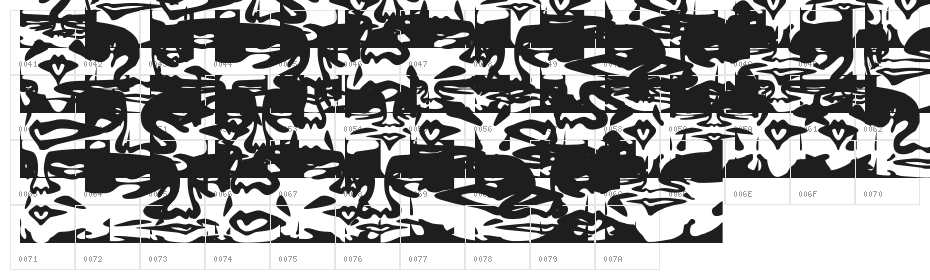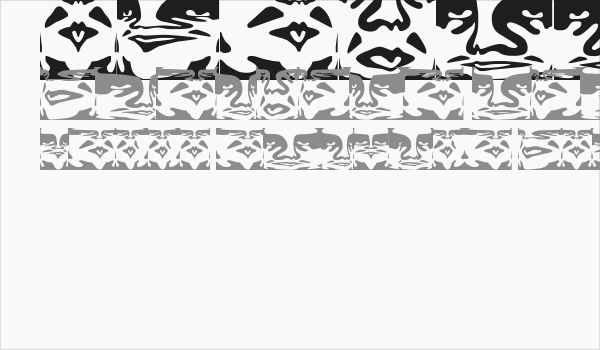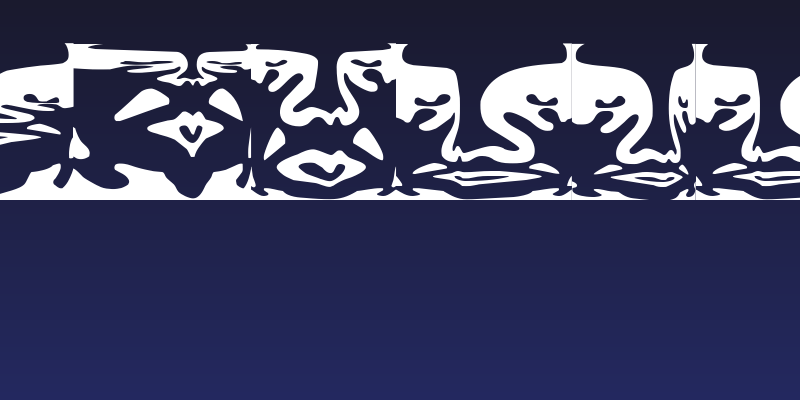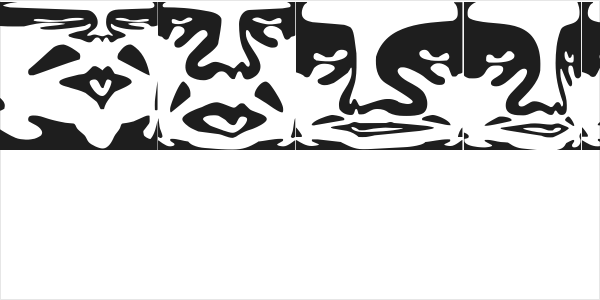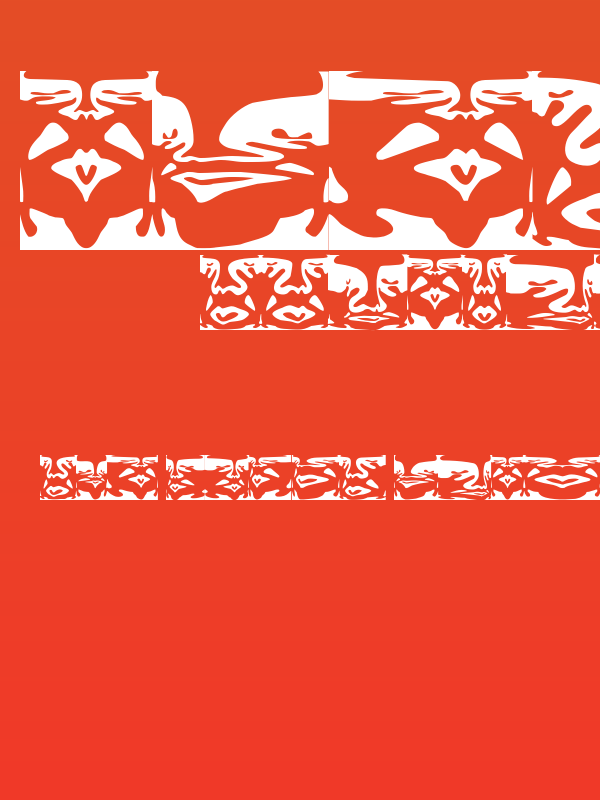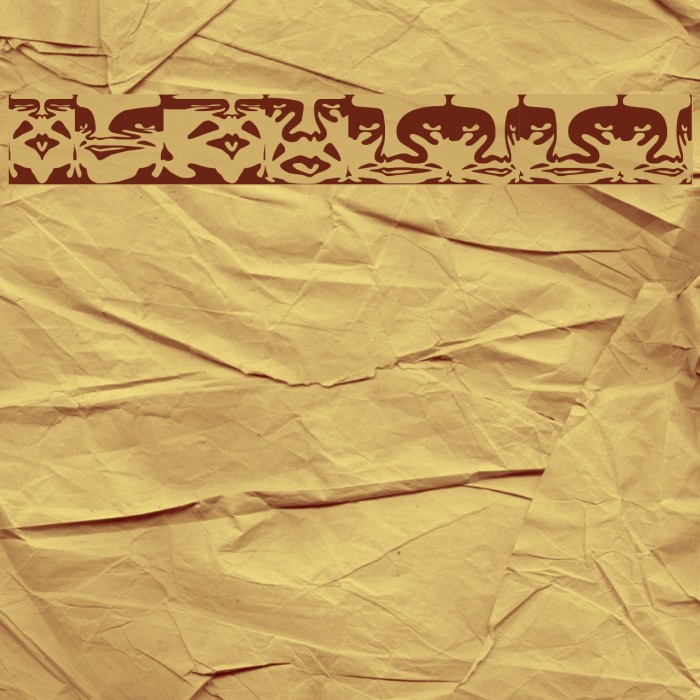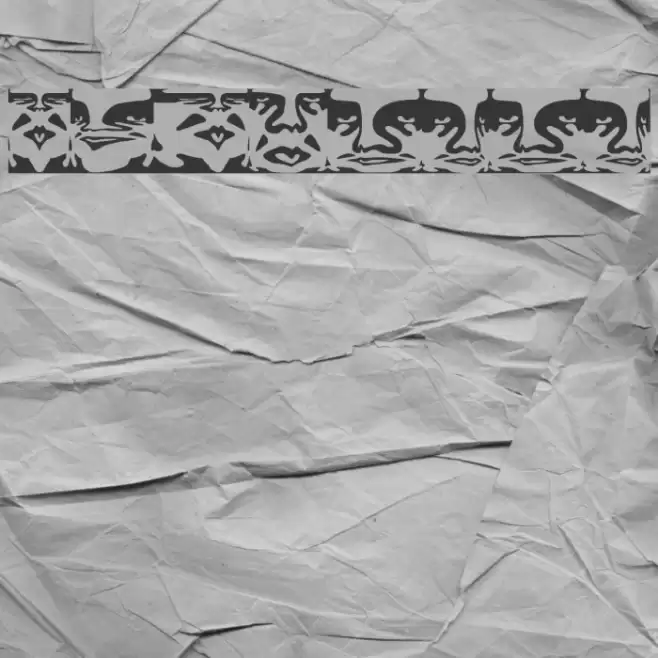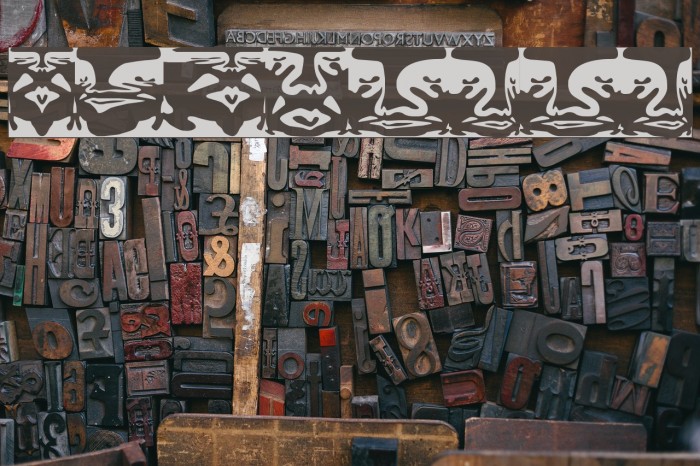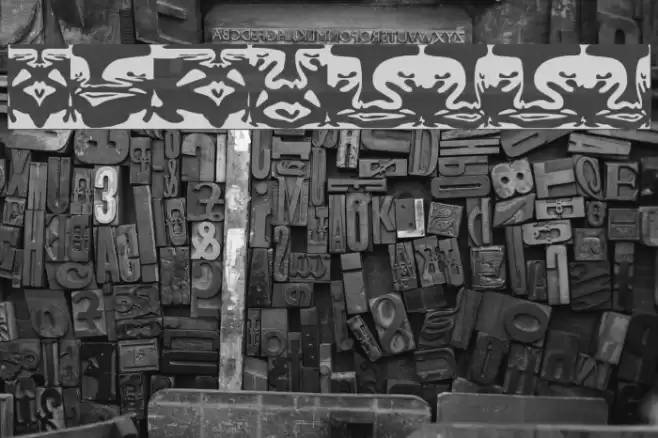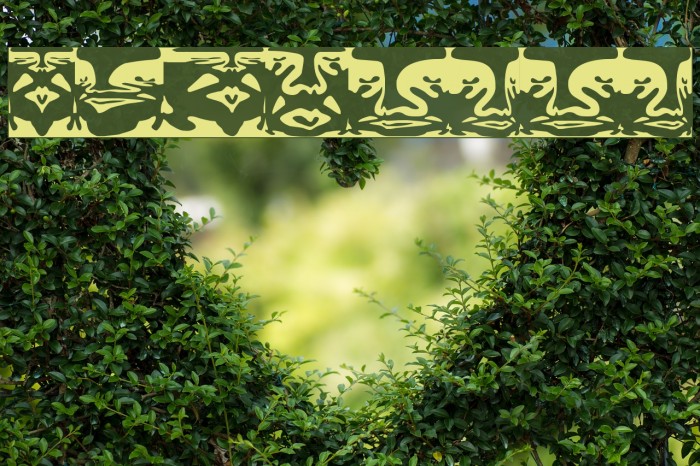
ObeyDada Font
ObeyDada Description
This font features a highly decorative and abstract style, characterized by intricate patterns and shapes that create a sense of movement and complexity. Each character is uniquely designed with swirling lines and bold contrasts between black and white, making it visually striking and attention-grabbing. The font's artistic flair and unconventional design make it suitable for creative and avant-garde projects. Its elaborate style may challenge readability in smaller sizes, but it excels in creating a strong visual impact when used in larger formats.
| Proposed Projects | Ideal for artistic posters, album covers, avant-garde branding, and experimental design projects. |